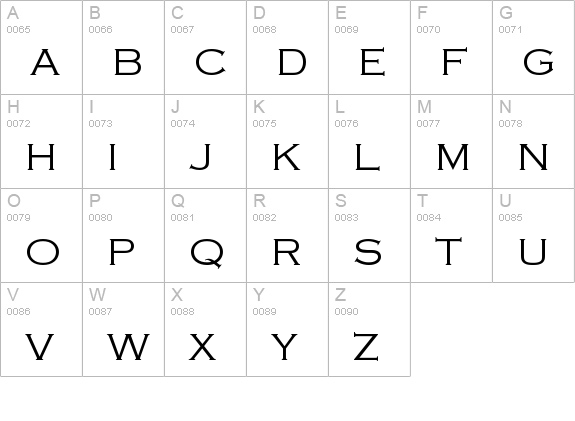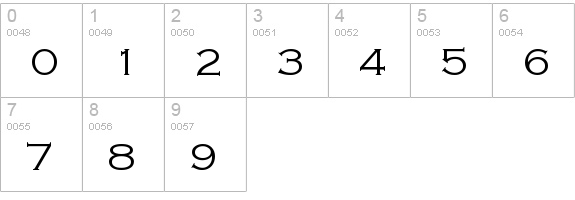
QTGraveure Regular Font Details
QTGraveure Regular is the standard, neutral variant in the QTGraveure typeface family \xE2\x80\x94 well suited to general body text, paragraphs, and standard typographic work.
QTGraveure Regular is a stunning font that combines classic elegance with a modern twist. Its graceful curves and clean lines make it the perfect choice for any project that requires a touch of sophistication. Whether you're designing a logo, creating a poster, or crafting a wedding invitation, QTGraveure Regular will add a touch of refinement to your work. What sets this font apart is not only its beauty but also its accessibility. QTGraveure Regular is available for free download at FontsMarket.com, making it easily accessible to anyone in need of a high-quality font. This means that you can add a touch of class to your designs without breaking the bank. With its versatile nature, QTGraveure Regular can be used in a variety of contexts. Its timeless design makes it suitable for both formal and informal projects, allowing you to convey your message with style and elegance. From magazines to websites, from business cards to brochures, this font is sure to make a lasting impression. Don't miss out on the opportunity to enhance your designs with this remarkable font. Download QTGraveure Regular for free at FontsMarket.com and let your creativity soar. With its exquisite design and easy accessibility, this font is a must-have for any design enthusiast.